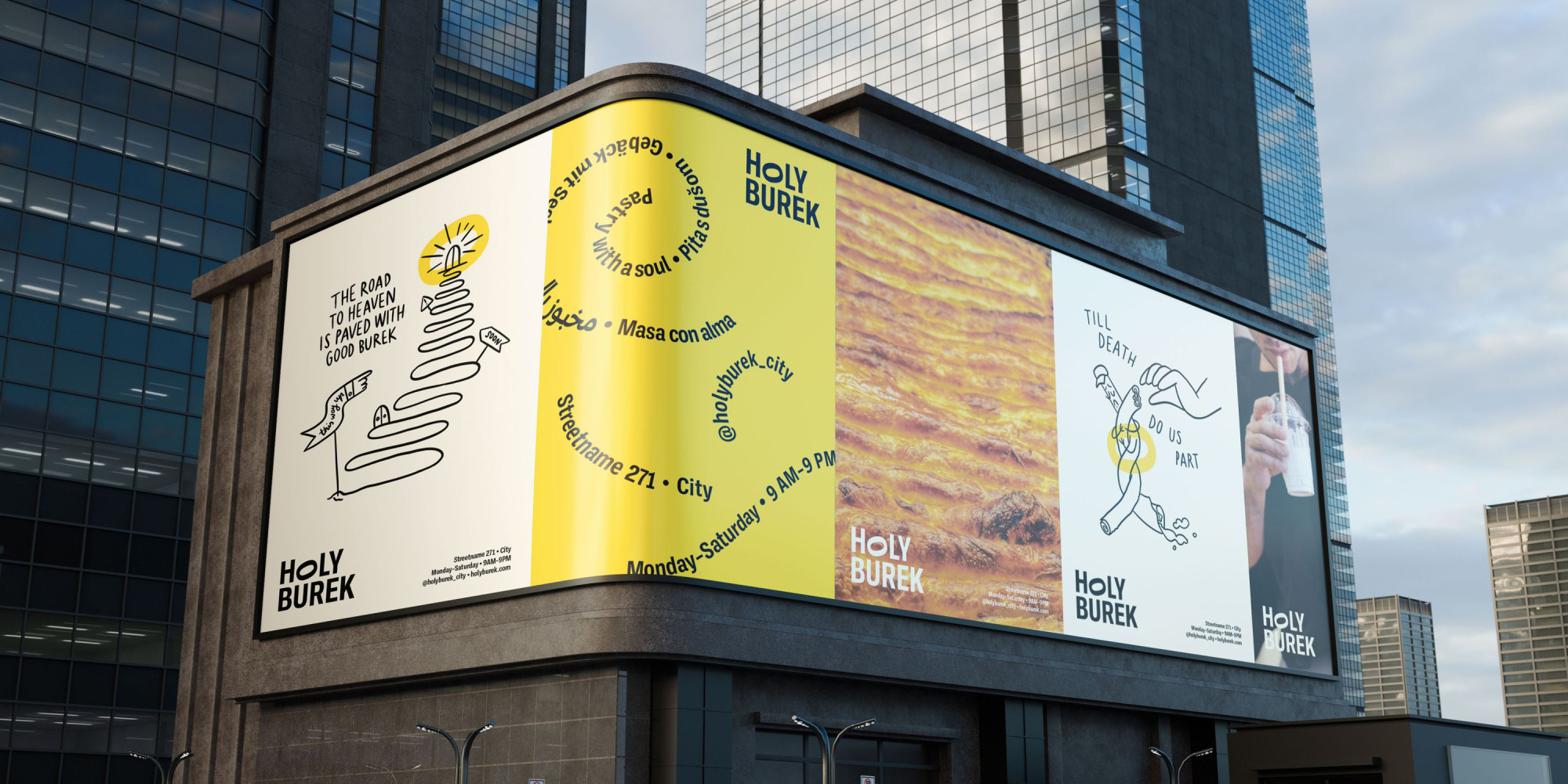
Ballinger Narrow
16 high-rise styles bring a touch of the vertical to our popular superfamily. Their Ballinger DNA is visible in the generous counters and x-height, forthright forms, and air of cheery efficiency. And like their wider relatives, they have their roots in 19th Century jobbing faces. While the eight Condensed styles are designed for impact, we took care to balance them for continuous reading, making them ideal for applications where space is at a premium. In contrast, the radically smooshed X-Condensed weights are ideal for movie credits, legal disclaimers, and lists of side effects. Features include semi-oldstyle figures and case-sensitive punctuation and delimiters. Winner of an ICAD Gold Bell.